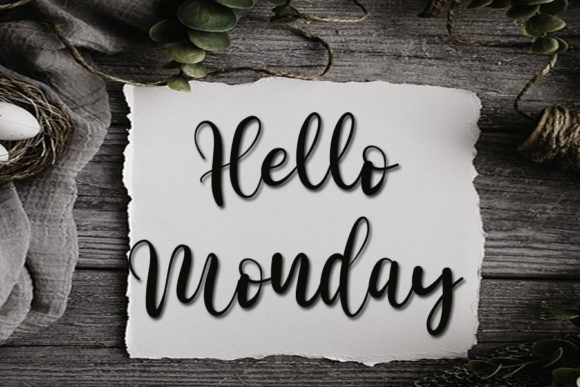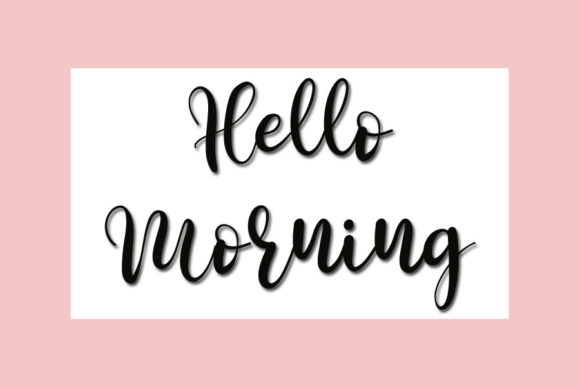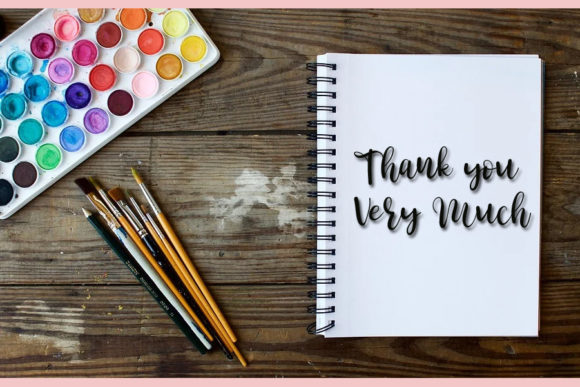
The Perfect Combination of Style and Functionality
As a designer, there’s nothing quite like the thrill of bringing a new project to life. The blank canvas, the endless possibilities, the excitement of watching your vision take shape. For many of us, it’s a moment of pure creative bliss. And that’s exactly what inspired us to explore the world of typography, in search of the perfect font to elevate our designs.
Enter the Billing Font, a stunning and versatile font that’s perfect for a wide range of design purposes. From YouTube banners to wedding invitations, this font is a game-changer for designers looking to add a touch of elegance and sophistication to their work. With its simple yet unique design, the Billing Font is a valuable addition to any designer’s toolkit.
By incorporating the Billing Font into your designs, you’ll not only add a touch of style, but also give your business the edge it needs to stand out in a crowded market. Whether you’re a seasoned pro or just starting out, this font is sure to become a trusted companion on your creative journey.
Billing Font Key Features
- Unique Character Set: Features a comprehensive character set, including Latin, Cyrillic, and Greek alphabets, as well as various symbols and glyphs.
- Style Options: Comes with multiple styles, including regular, bold, italic, and bold-italic, allowing for versatile font usage.
Billing Font Review
Overall, I found Billing Font to be a decent option for its purpose, but it has its limitations. ✨ One thing that works well is the clear, easy-to-read design, making it perfect for financial and business-related applications.
Here are some of its strengths:
- Legible font even at smaller sizes
- Good contrast between letter and background
- Available in a variety of weights
However, there are some drawbacks:
- ⚠️ Limited character set, which might not be ideal for languages with complex scripts
- ⚠️ Not as customizable as some other fonts in terms of style and appearance
- ⚠️ May not be suitable for body text due to its simplicity
Overall, Billing Font is a solid choice for specific use cases, such as invoice templates or financial reports. It gets the job done, but it’s not a versatile font that can be used in a wide range of applications.
Getting the Most Out of Billing Font
To get the most out of Billing Font, use it consistently throughout your design to create a professional and cohesive look. You can also experiment with different font sizes and styles to create visual hierarchy and emphasis.
Billing Font is commonly used in financial and business documents, such as invoices, receipts, and contracts. It is also used in marketing materials, such as brochures and flyers, to create a professional and trustworthy image.
Alternatives to “Billing Font” for Designers
Open Sans is a clean and modern sans-serif font that is highly legible and versatile. It’s perfect for body text and is widely used in digital products. When to use: For digital products, web applications, and general body text.
Comparison to Billing Font: Open Sans is more modern and sleek, whereas Billing Font has a more traditional feel. Open Sans is also more legible at small font sizes.
Lato is a sans-serif font that is highly readable and has a friendly feel. It’s great for body text and is also suitable for headings. When to use: For body text, headings, and digital products.
Comparison to Billing Font: Lato is more modern and has a more rounded feel, whereas Billing Font is more traditional and has a sharper feel. Lato is also more versatile and can be used in a variety of contexts.